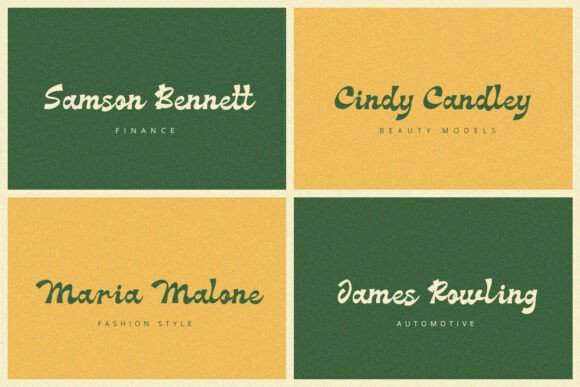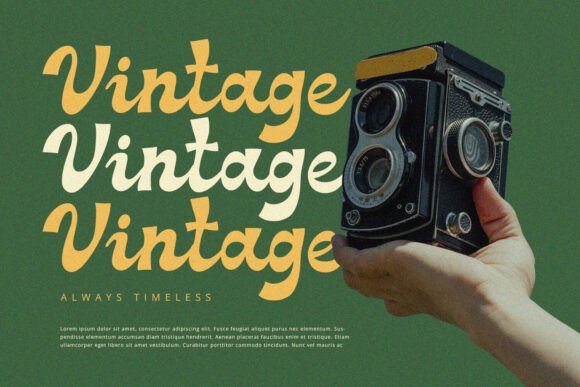
Meadow Font
Meadow is a groove script font with bold and classic feels. It will be perfectly used for Branding, Logo Design, Lettering, Logotype, Clothing, Poster, magazine, packaging, posters, shopping bags, t-shirts, book covers, photography, special events and other design project.Product Content : – Meadow (otf-ttf-woff) Features : – Uppercase & Lowercase – Numerals – Punctuations (OpenType Standard) – Accents (Multilingual Characters) – Ligatures and Alternative Style Stylistic Set – Works on PC & Mac – Simple installations I hope you enjoy this font. If you have any questions please don’t hesitate to drop me a message 🙂 Best, Alpaprana